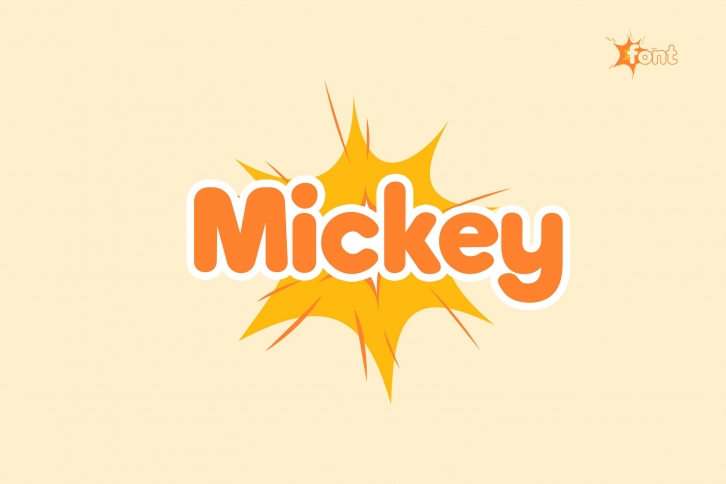
Mickey is a clean and adaptable display font. No matter the topic, this font will be an incredible asset to your fonts’ library, as it has the potential to elevate any creation.Â